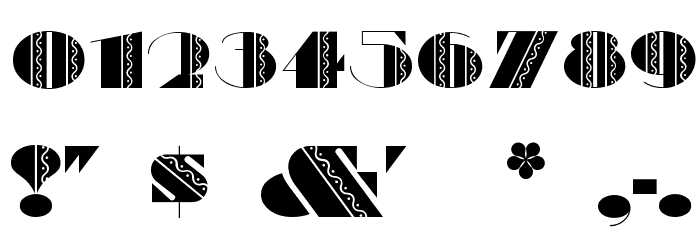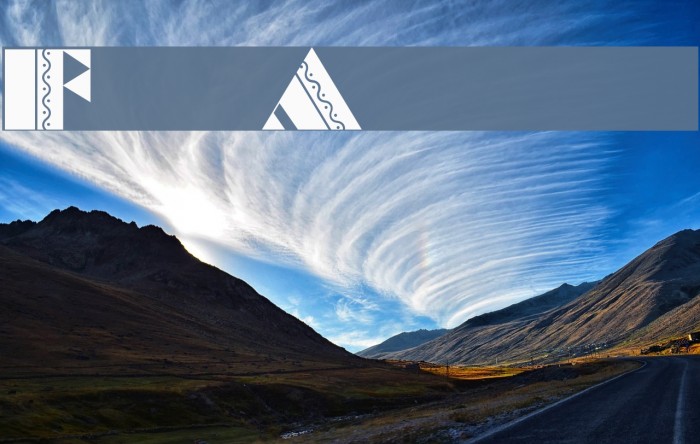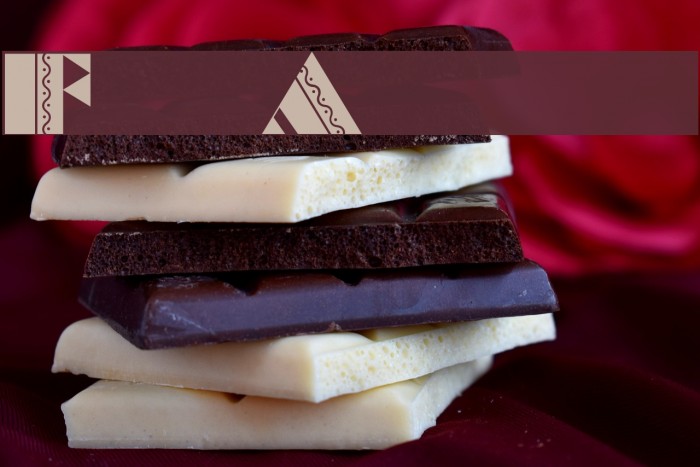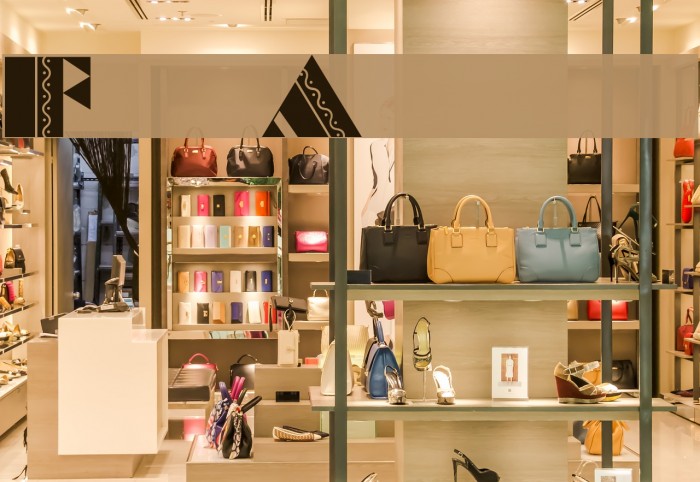
FeteAccompli Font
FeteAccompli Description
This font features a bold and decorative style with intricate patterns embedded within each character. The uppercase letters are particularly striking, with a strong geometric influence and a playful use of negative space. The numbers and special characters maintain this decorative theme, adding a unique flair to any design. The font's distinct appearance makes it ideal for eye-catching headlines and artistic projects. Its boldness and intricate detailing suggest a sense of celebration and creativity, making it perfect for festive or themed events.
| Proposed Projects | Ideal for event posters, festive invitations, artistic branding, and decorative headlines. |